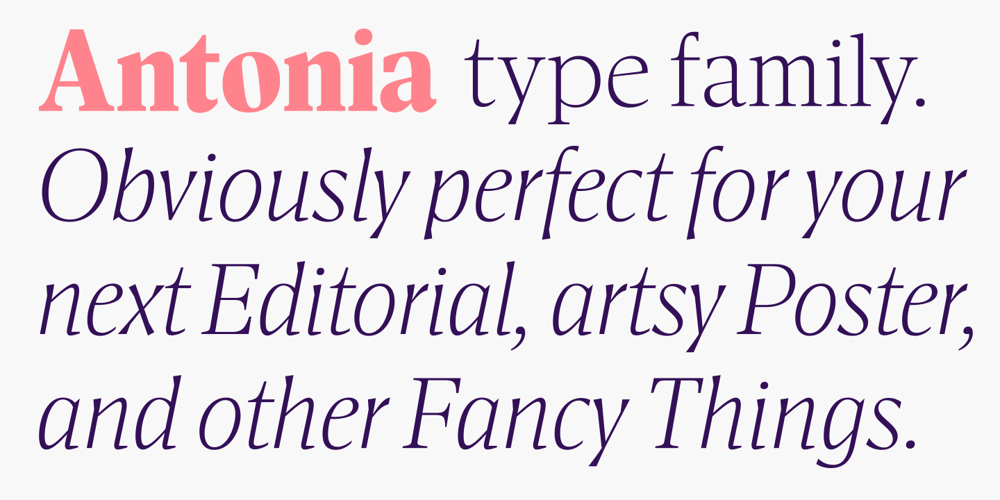
Antonia
Antonia font
Antonia Font Family was designed by Michael Hochleitner, Franziska Weitgruber and published by Typejockeys. Antonia contains 50 styles and family package options. Antonia is an original type family of 46 font, 7 weights and 4 optical sizes. Born in the middle of the Alps, Antonia is as modern as it is down to earth. The multi-variant package includes text, display, and italic styles, looking crisp and perfect in all sizes and applications. Antonia is our first release available in Variable font format.